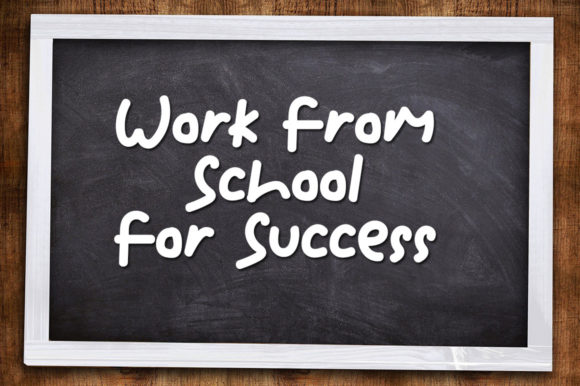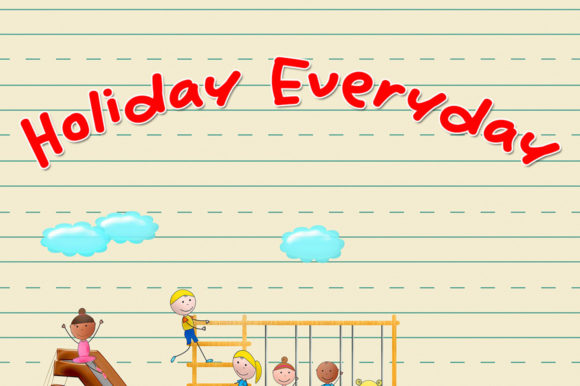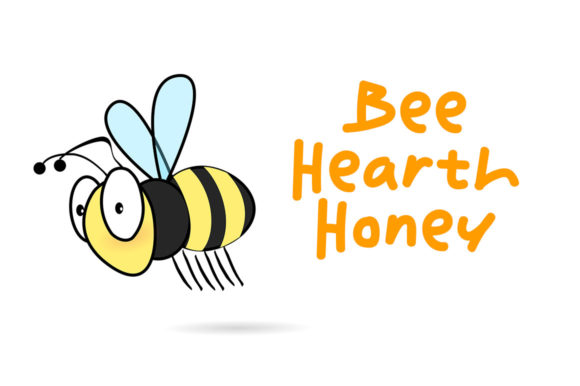
The Crayon Font
About The Crayon Font
“The Crayon” is a delightful and charming handwritten font that brings a beautiful and sweet touch to your creative projects. With its fresh, clean, and quirky aesthetic, “The Crayon” is a versatile typeface suitable for a wide range of applications. Whether used as a logotype, headline font, or incorporated into corporate and brand identity, this font lends a playful and unique character to various design projects.
The charm of “The Crayon” lies in its handwritten style, which exudes a sense of authenticity and creativity. The font’s fresh and clean appearance adds a modern touch, while its quirky elements inject personality into the design, making it a standout choice for a variety of creative endeavors.
In the realm of logotypes, “The Crayon” stands out as a font that captures attention with its playful yet professional appeal. Its handwritten charm adds a personalized touch to brand identities, making it suitable for businesses in the apparel industry, music, movies, games, and more. The font’s versatility allows it to adapt seamlessly to diverse branding needs.
As a headline font, “The Crayon” makes a bold statement, drawing the viewer’s eye with its unique and quirky letterforms. Whether it’s for posters, magazines, books, comics, or cartoons, this font adds a distinctive and eye-catching element that enhances the overall visual impact of your design.
In the digital realm, “The Crayon” finds its place on platforms like YouTube, Instagram, and websites. Its playful and handwritten style makes it a favorite for social media posts, providing a fresh and engaging look. The font’s adaptability ensures it harmonizes with various content, from fun and lighthearted to more serious and informative.
Creative design projects, spanning a wide range of mediums, benefit from the unique charm of “The Crayon.” Whether you’re working on a music album cover, a movie poster, a game interface, or any other project that demands a touch of creativity, this font adds a layer of charm that resonates with audiences.
In summary, “The Crayon” is not just a font; it’s an invitation to infuse your designs with creativity and playfulness. Its suitability for logotypes, headlines, corporate and brand identity, as well as its adaptability to various industries, make it a versatile and charming choice for your creative endeavors. Elevate your projects with the fresh, clean, and quirky aesthetic of “The Crayon” and watch as it brings a unique character to your design landscape.